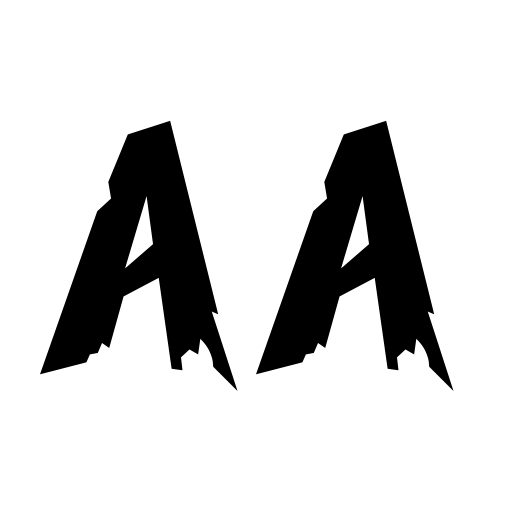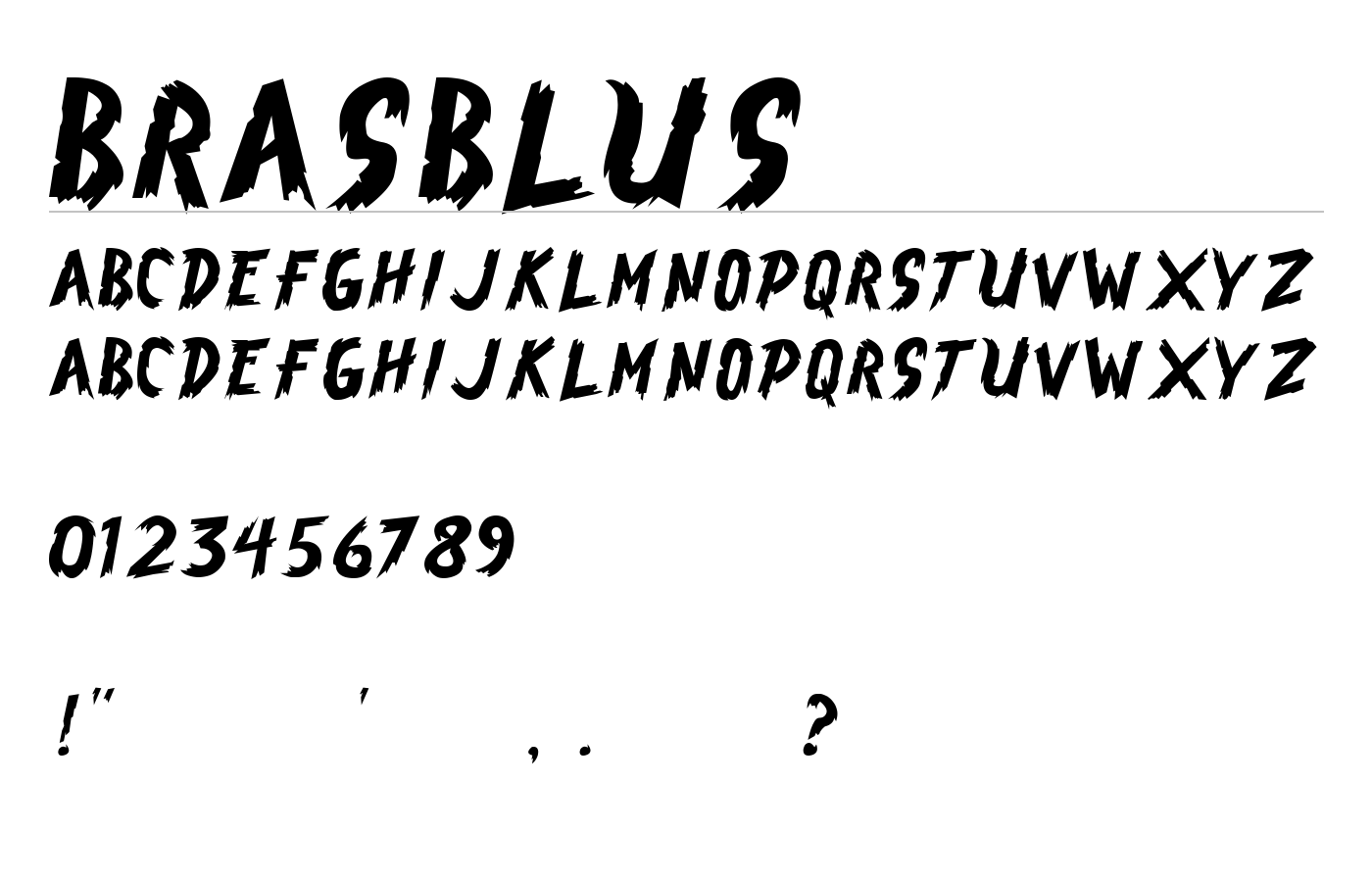
Brasblus is a bold, brush-style display font with a dynamic and edgy character, featuring sharp, jagged strokes that evoke an energetic, hand-painted look. Its uppercase letters showcase a strong visual impact with slightly condensed forms and playful irregularities, making it ideal for creative headlines, posters, or branding that seeks a raw, artistic vibe. This font works best in designs aiming to convey spontaneity, excitement, and a modern street-art inspired personality.
Brasblus Font
About Brasblus Font